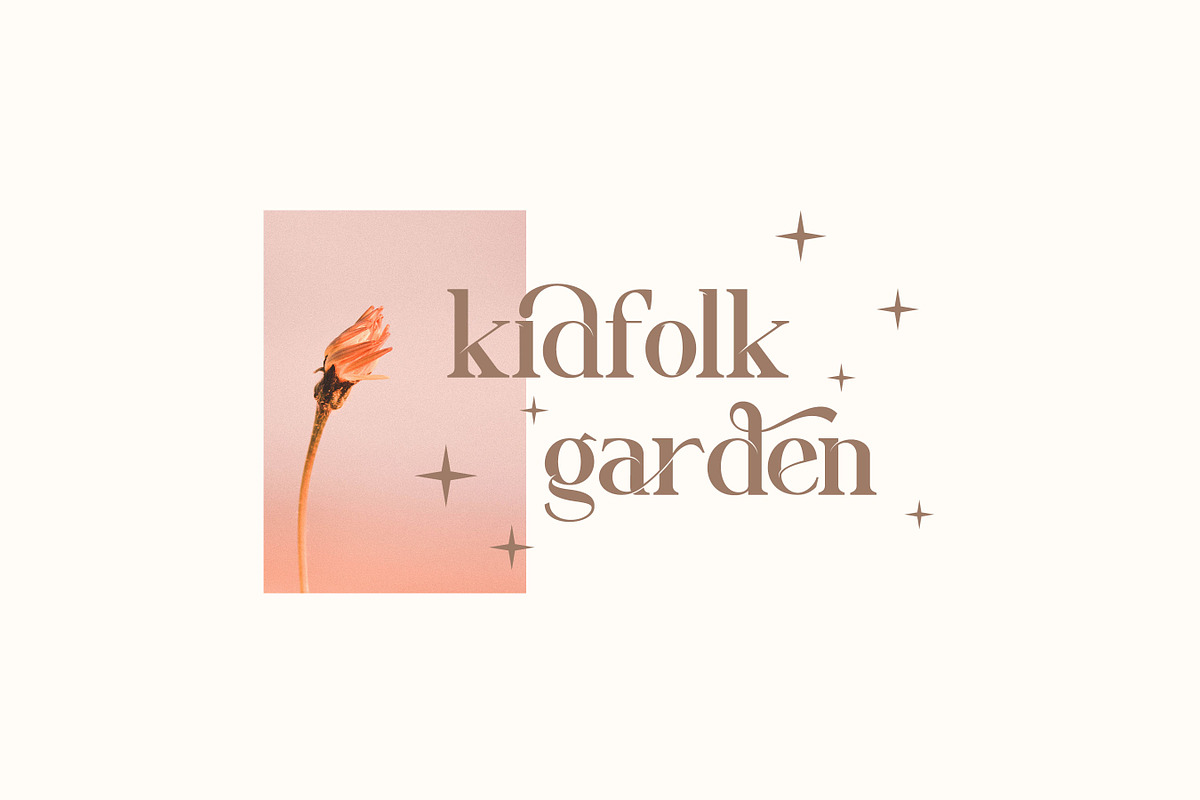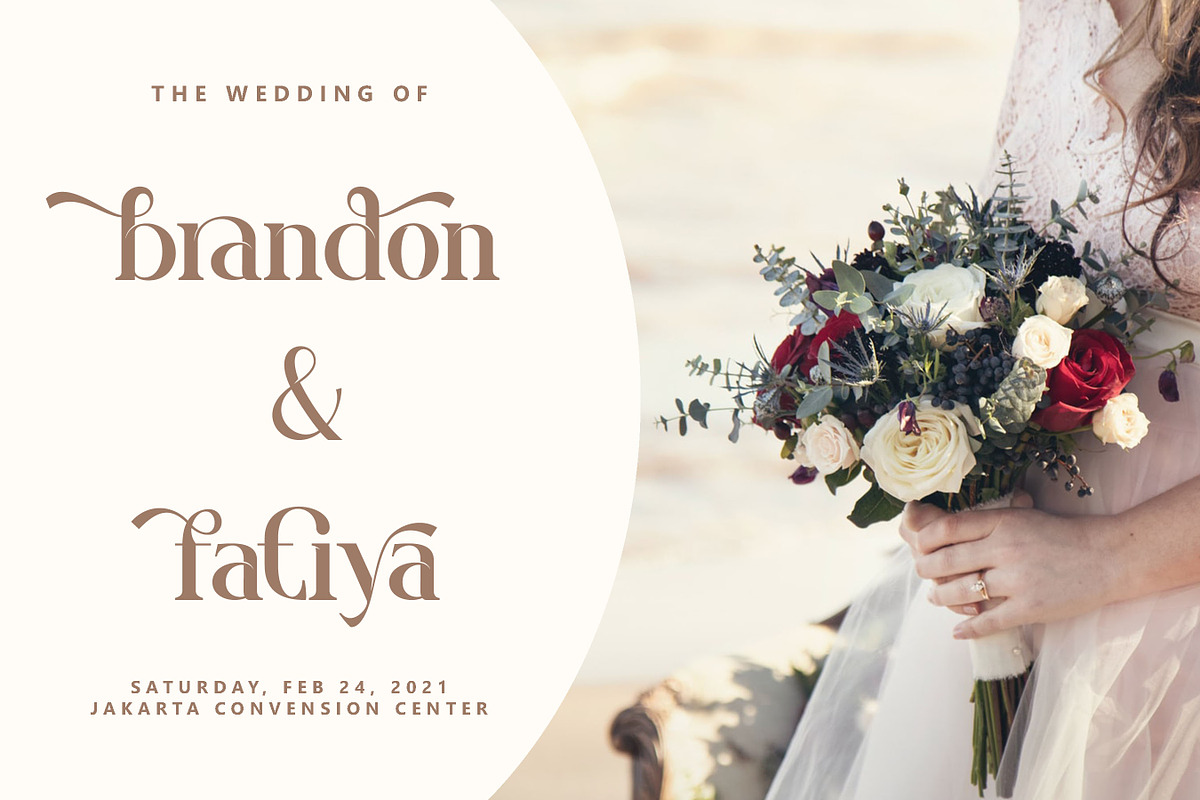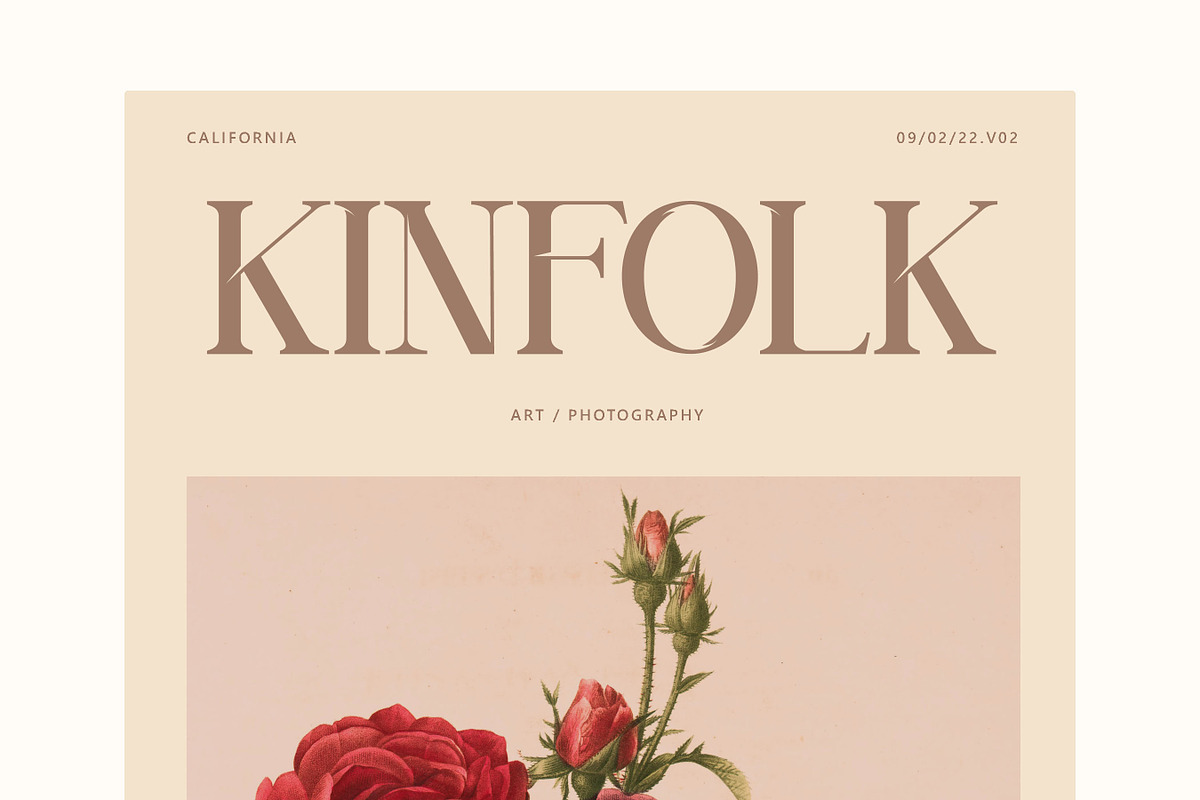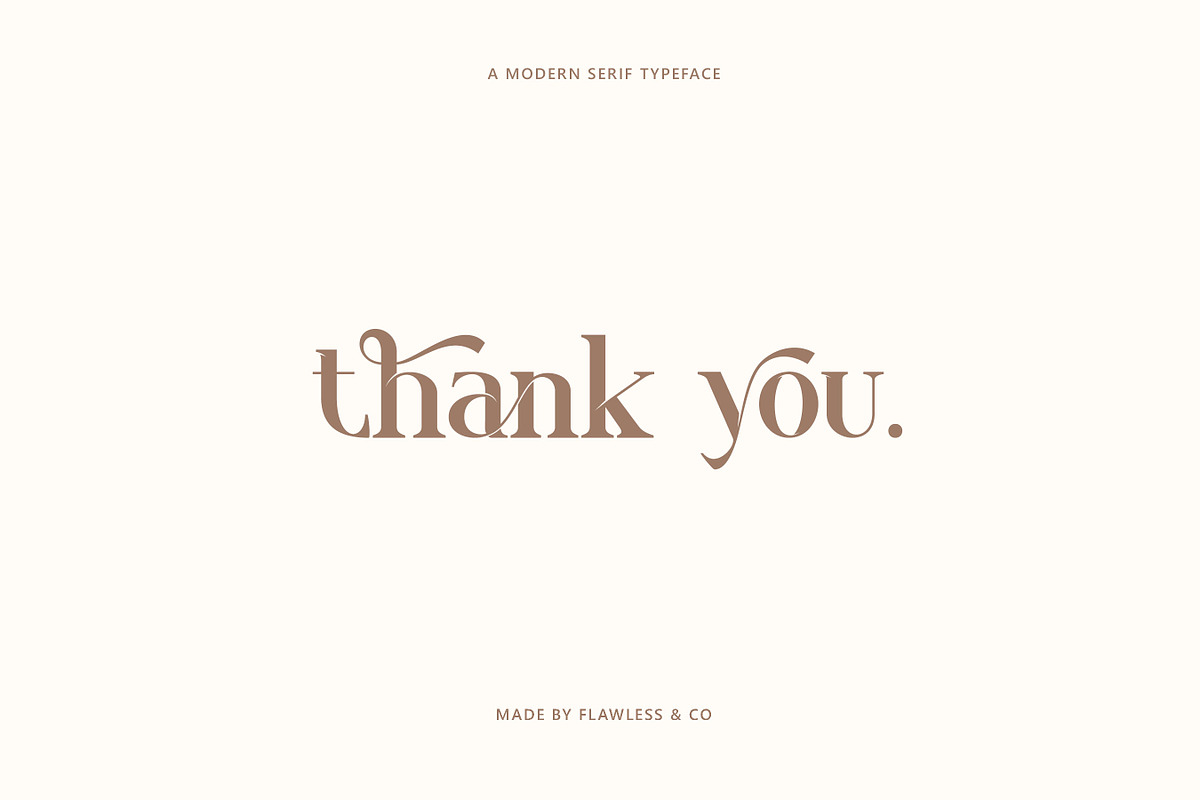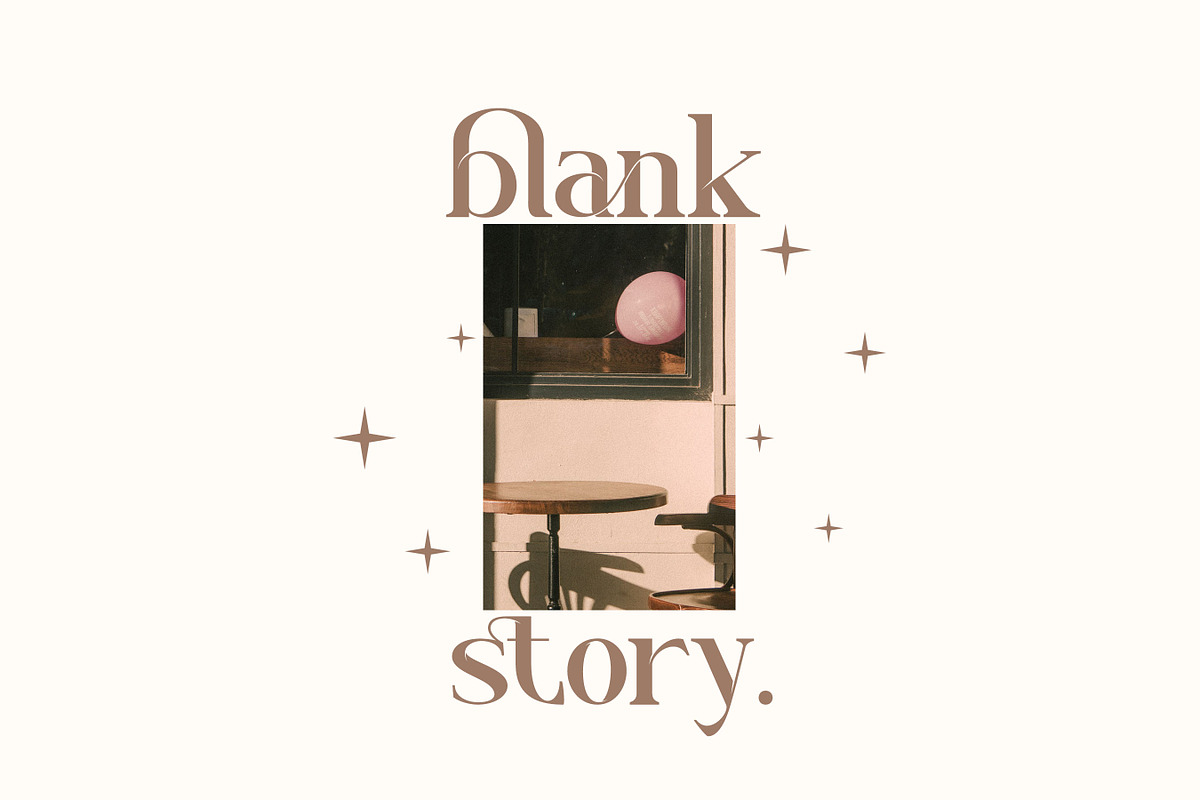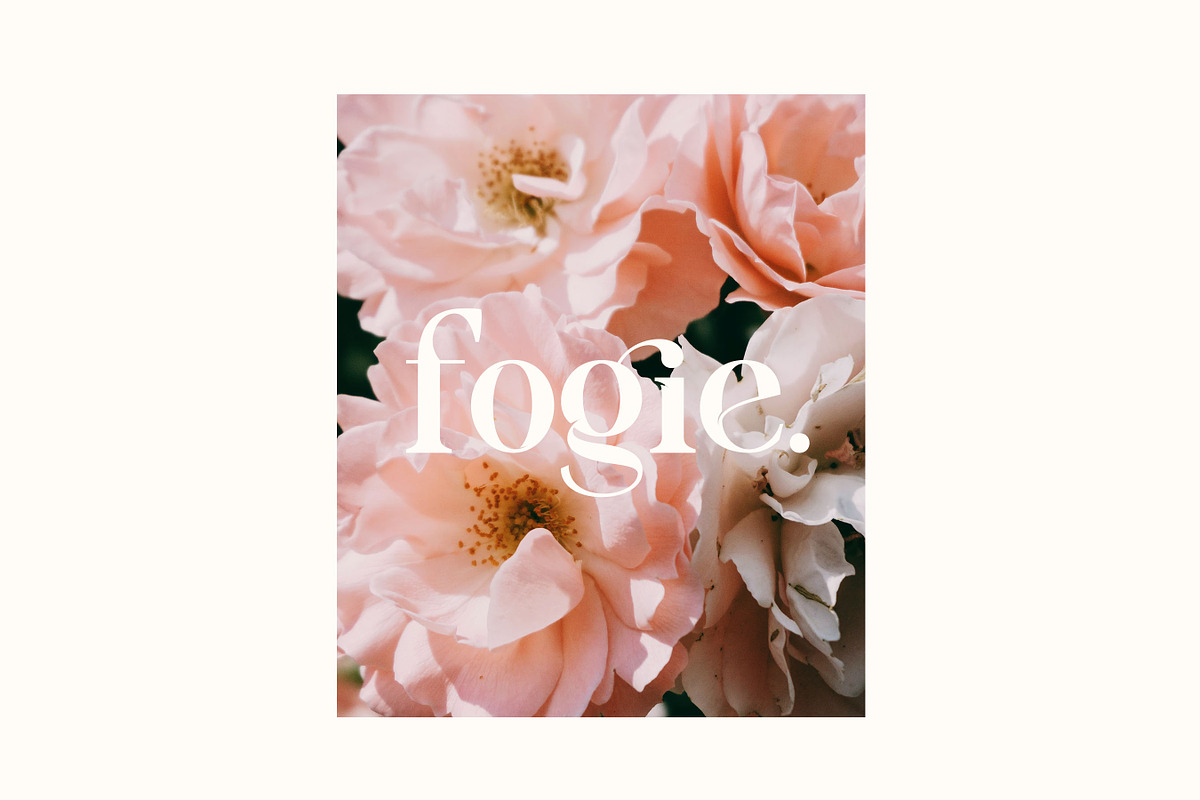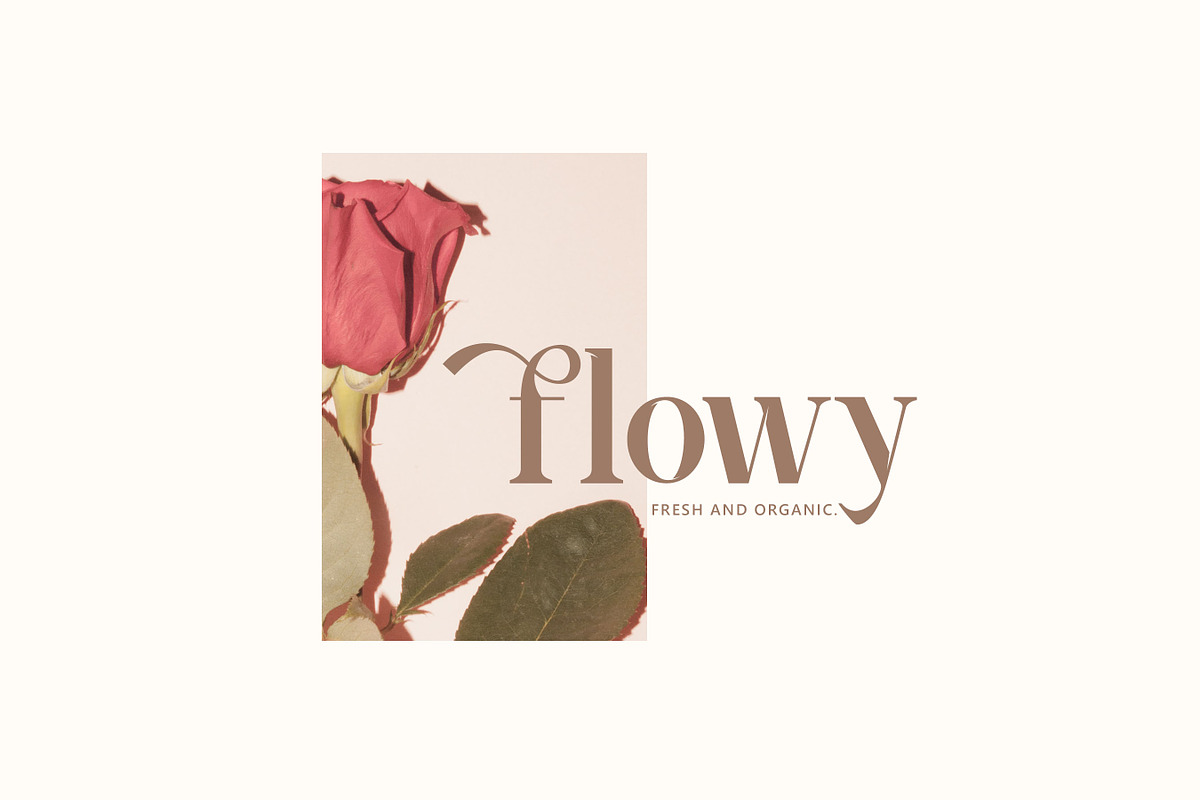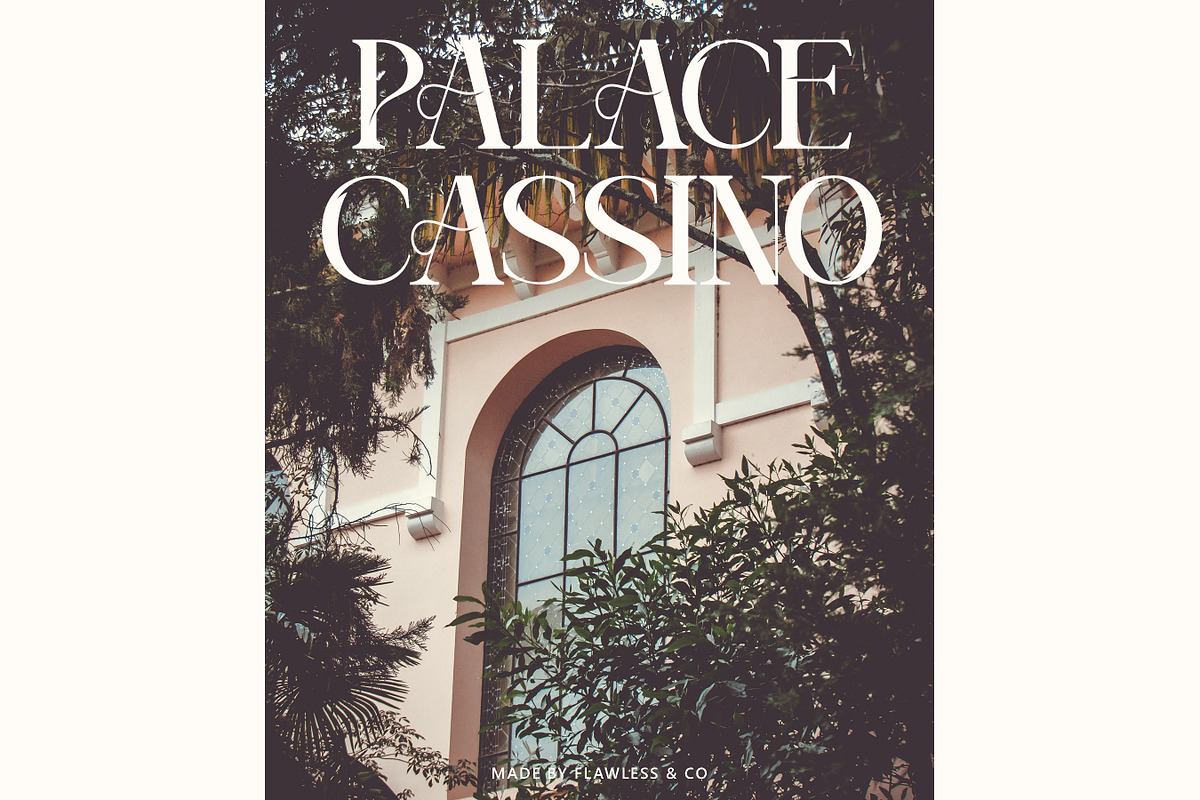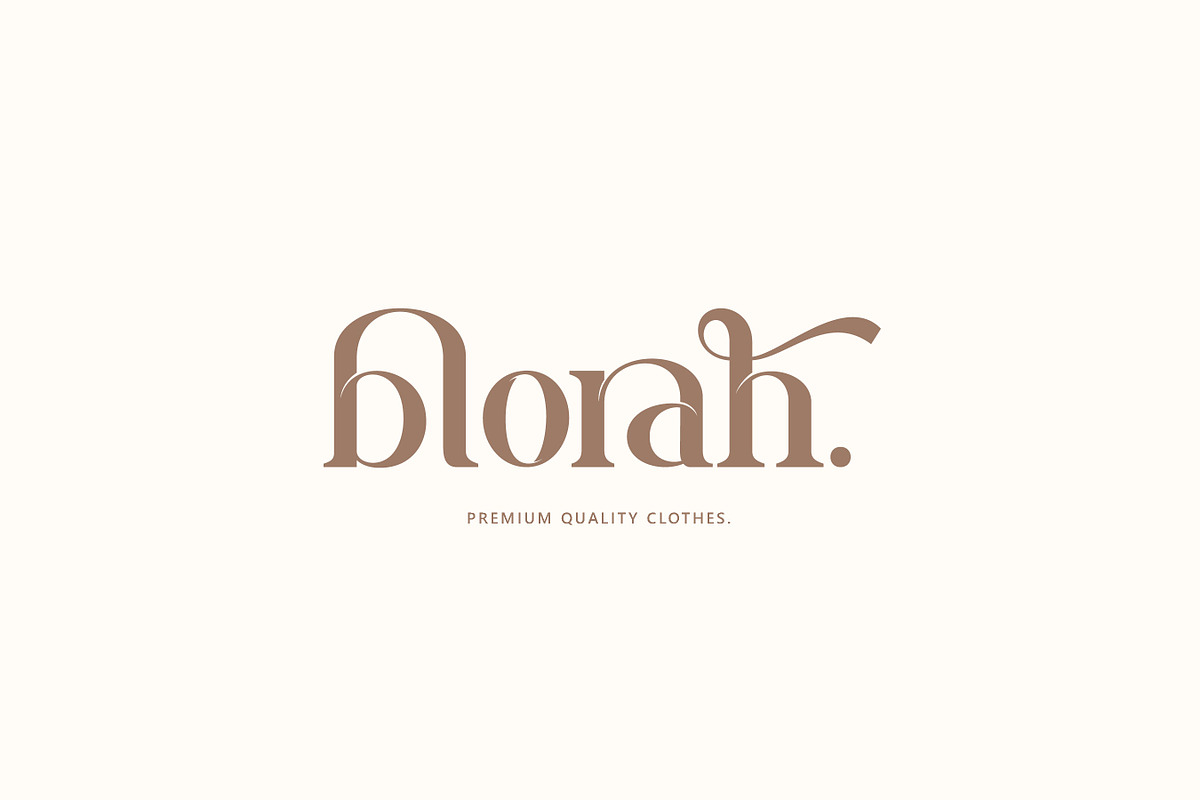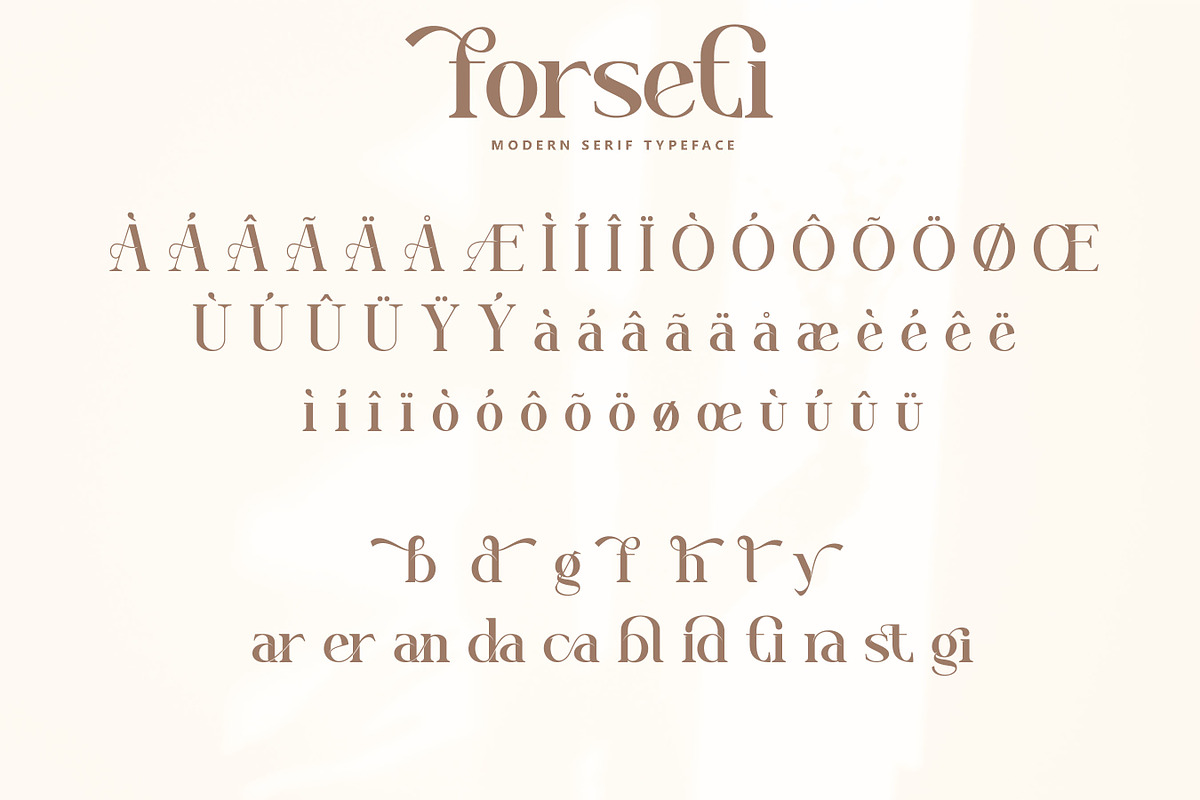
Forseti - Modern Serif Font
our latest creation, modern serif with various alternates and ligatures, multilingual support, an updated blend of bohemian style, suitable for branding, business, logos, magazines, and others